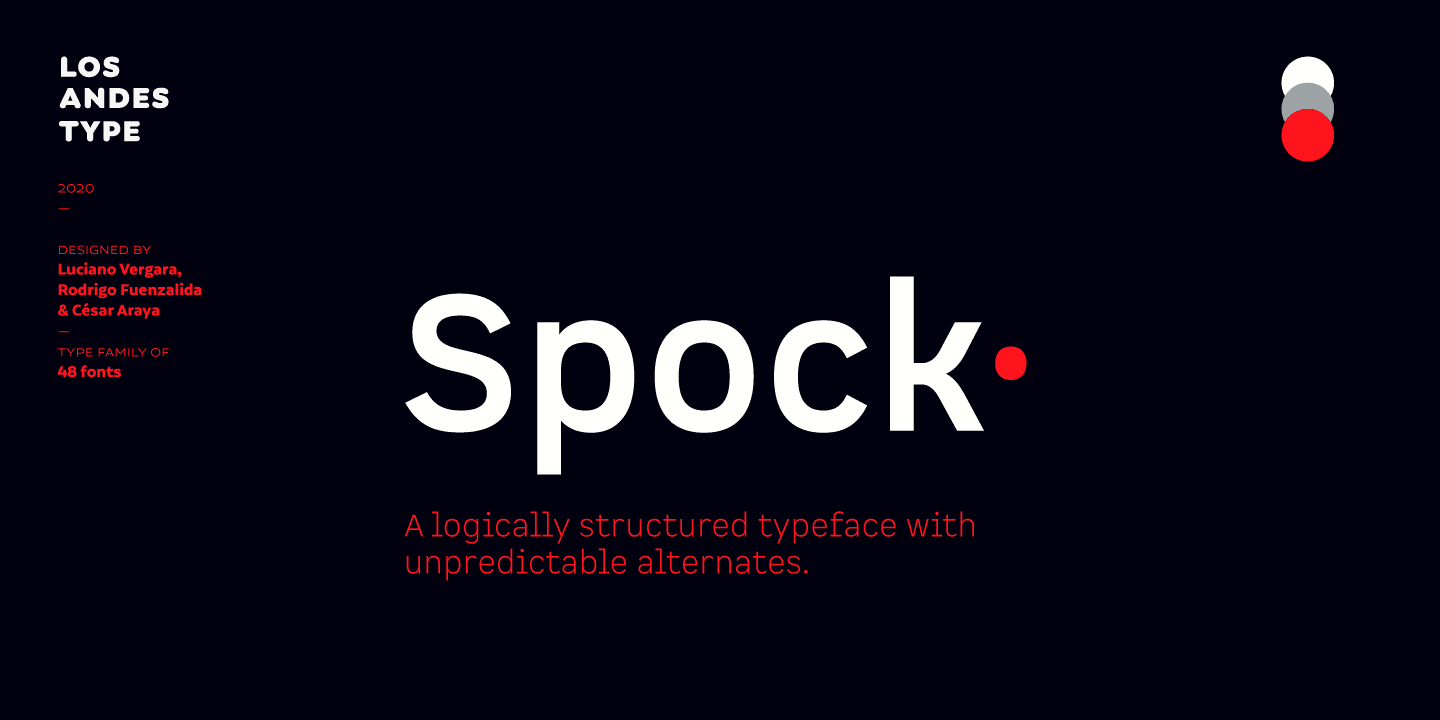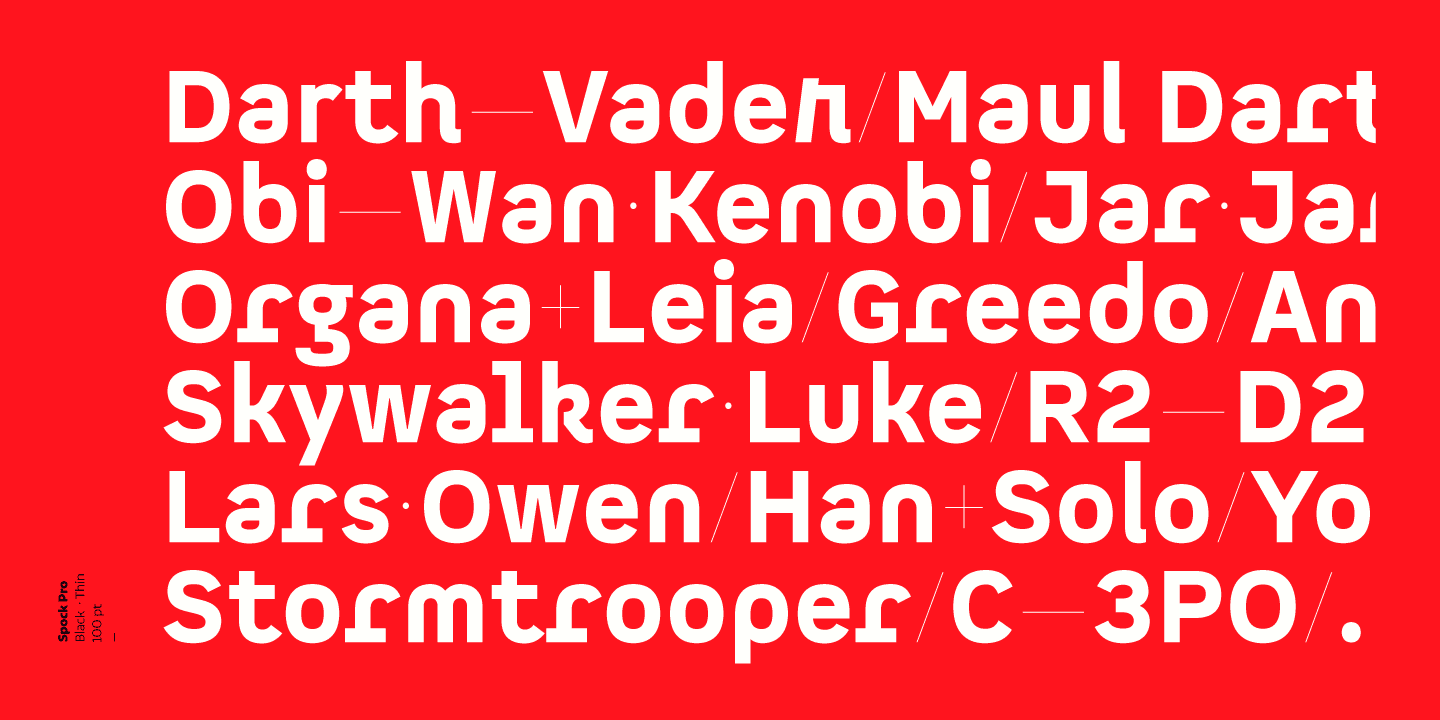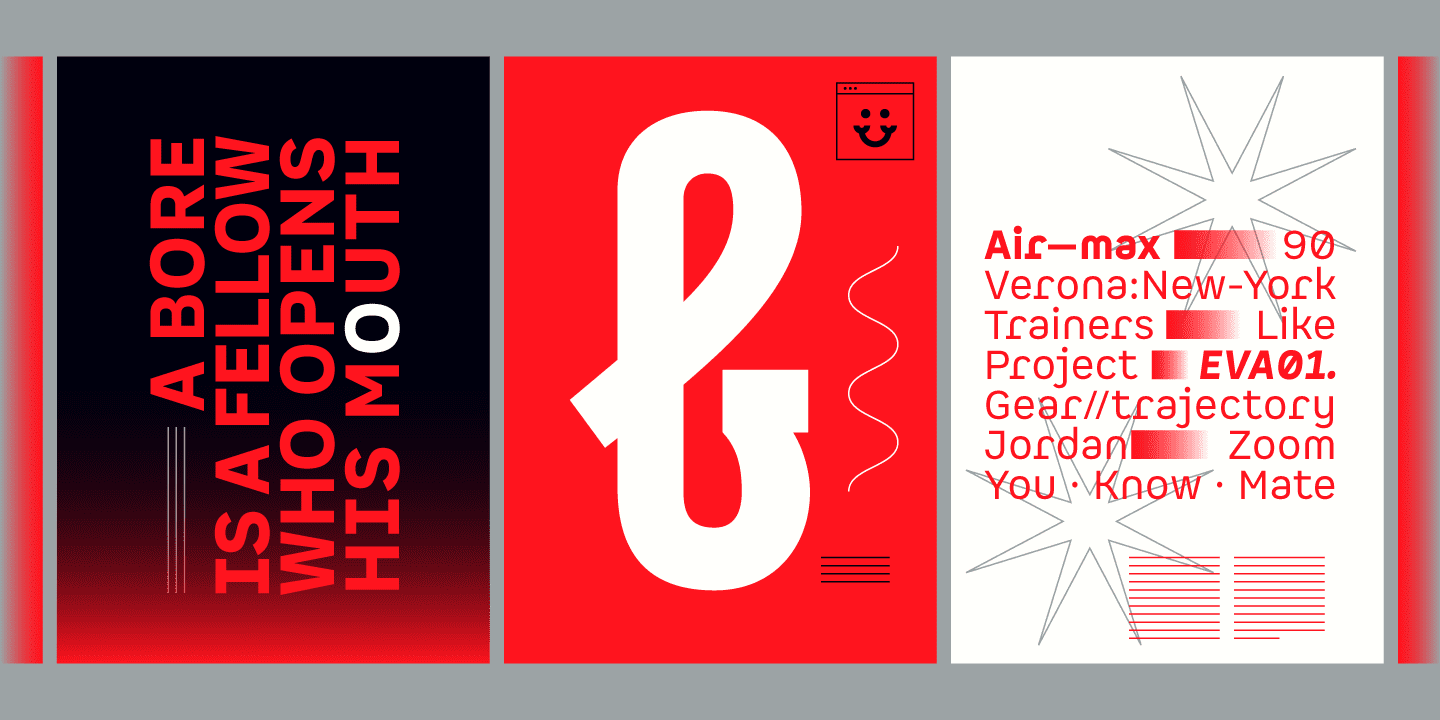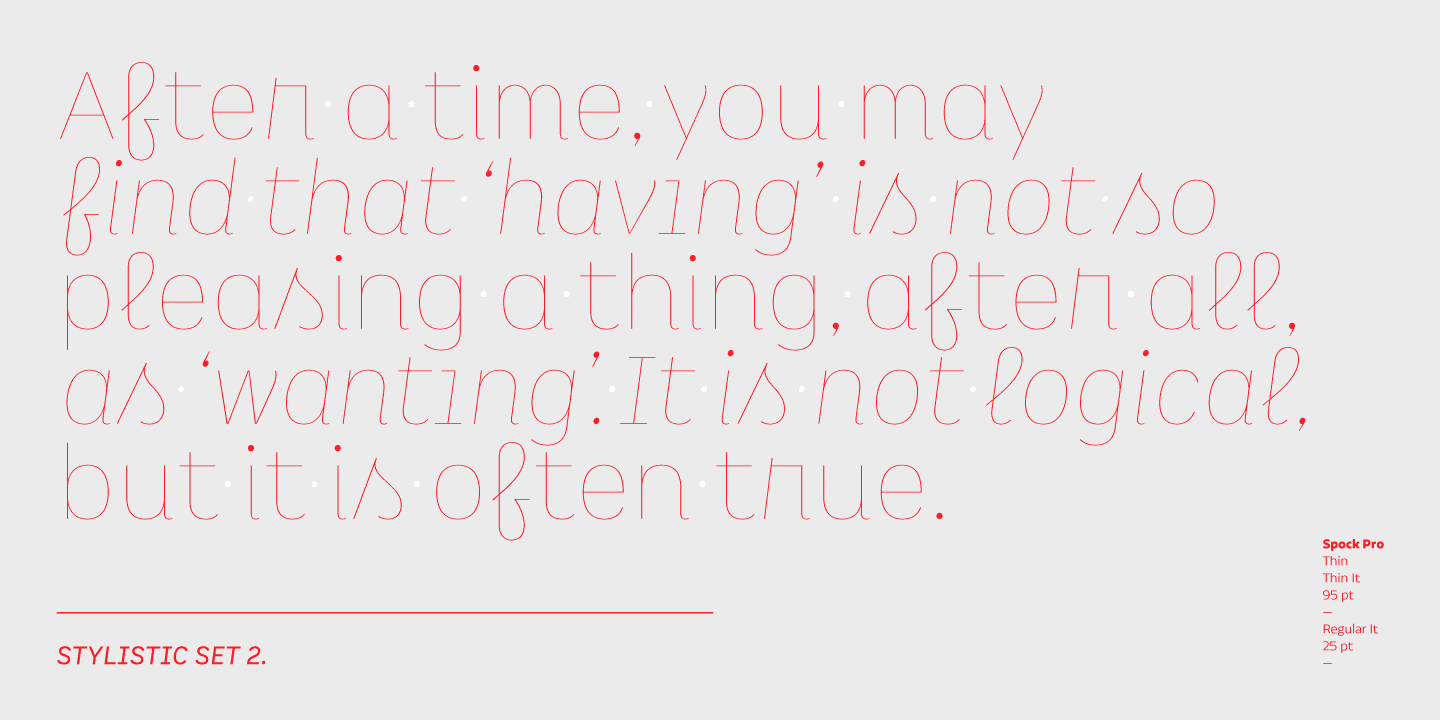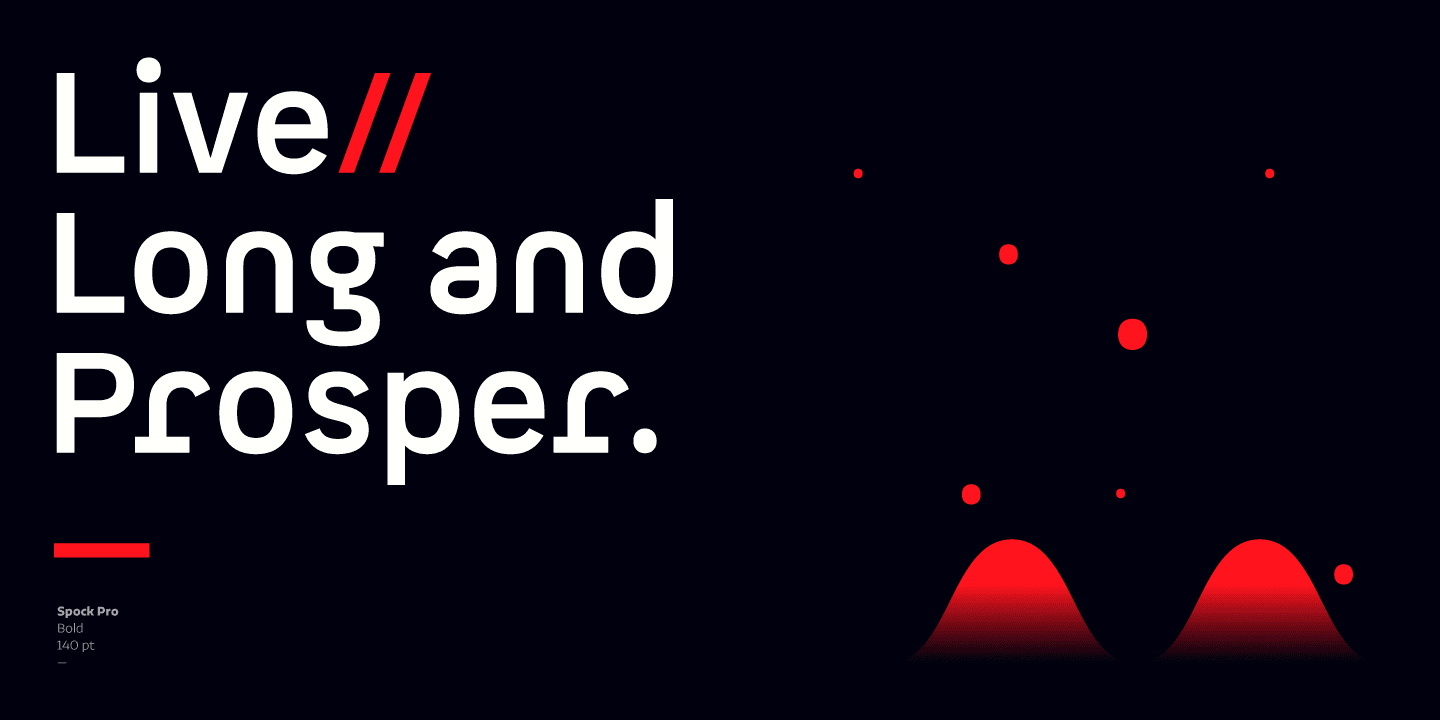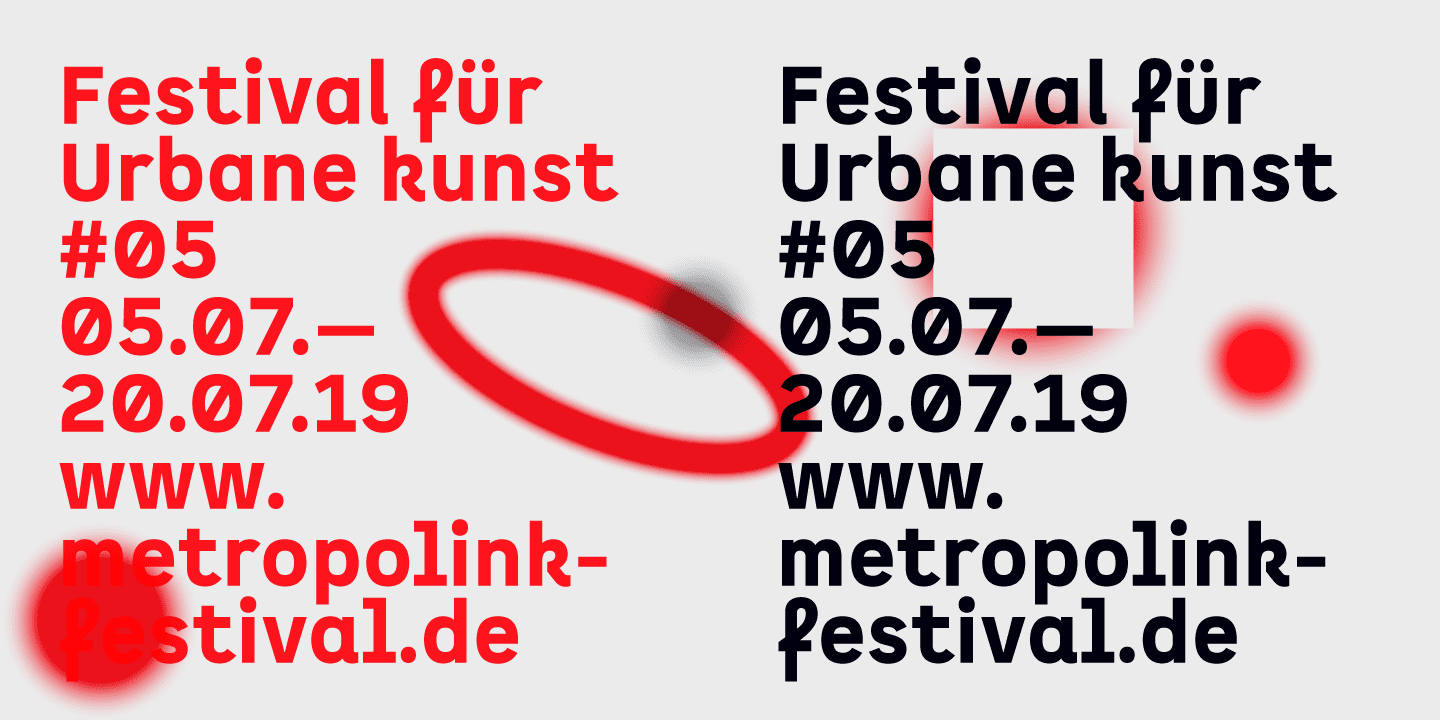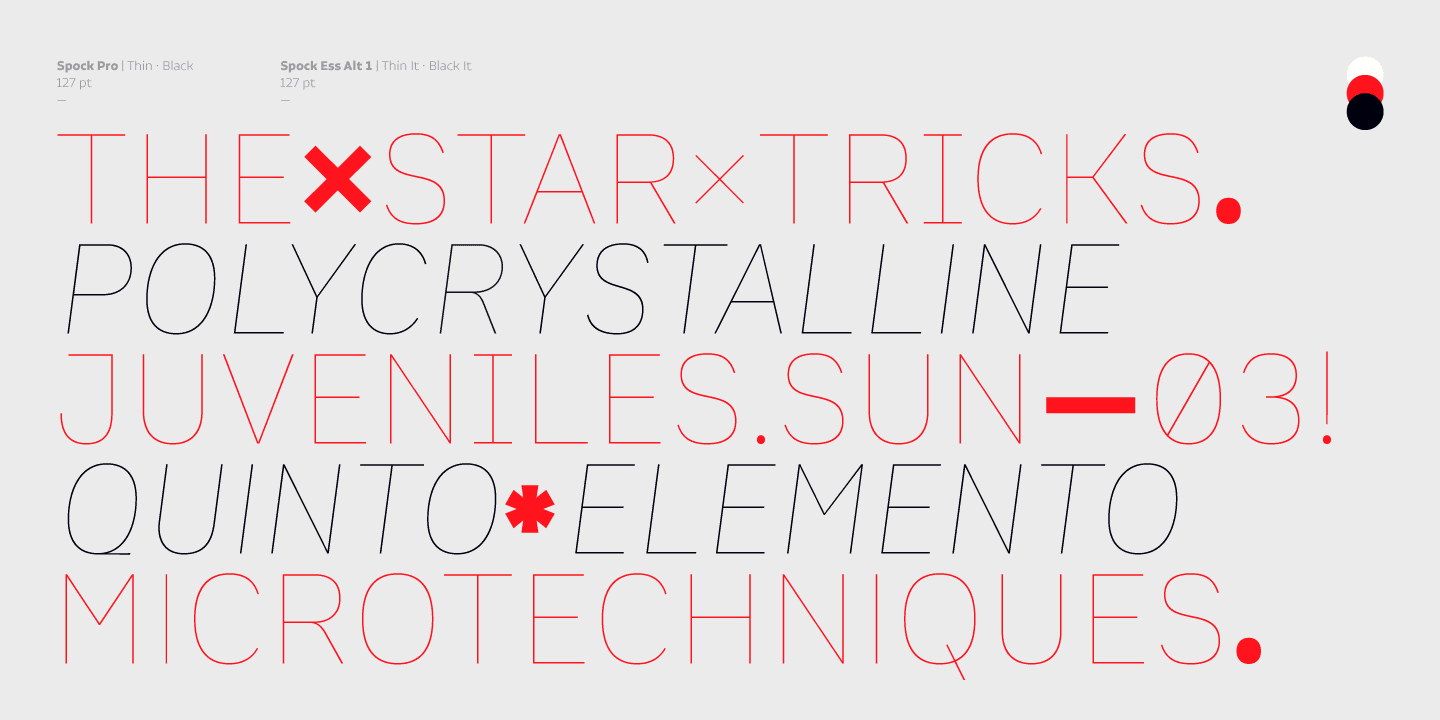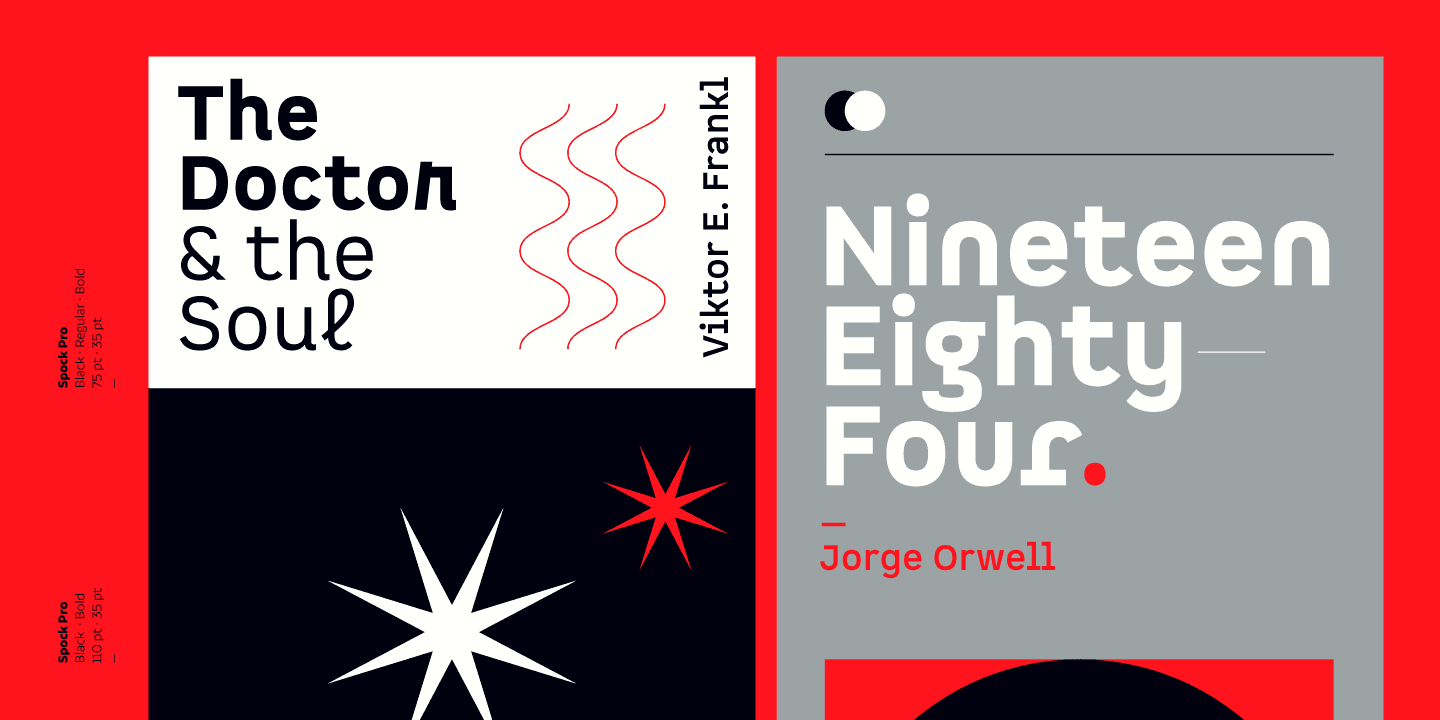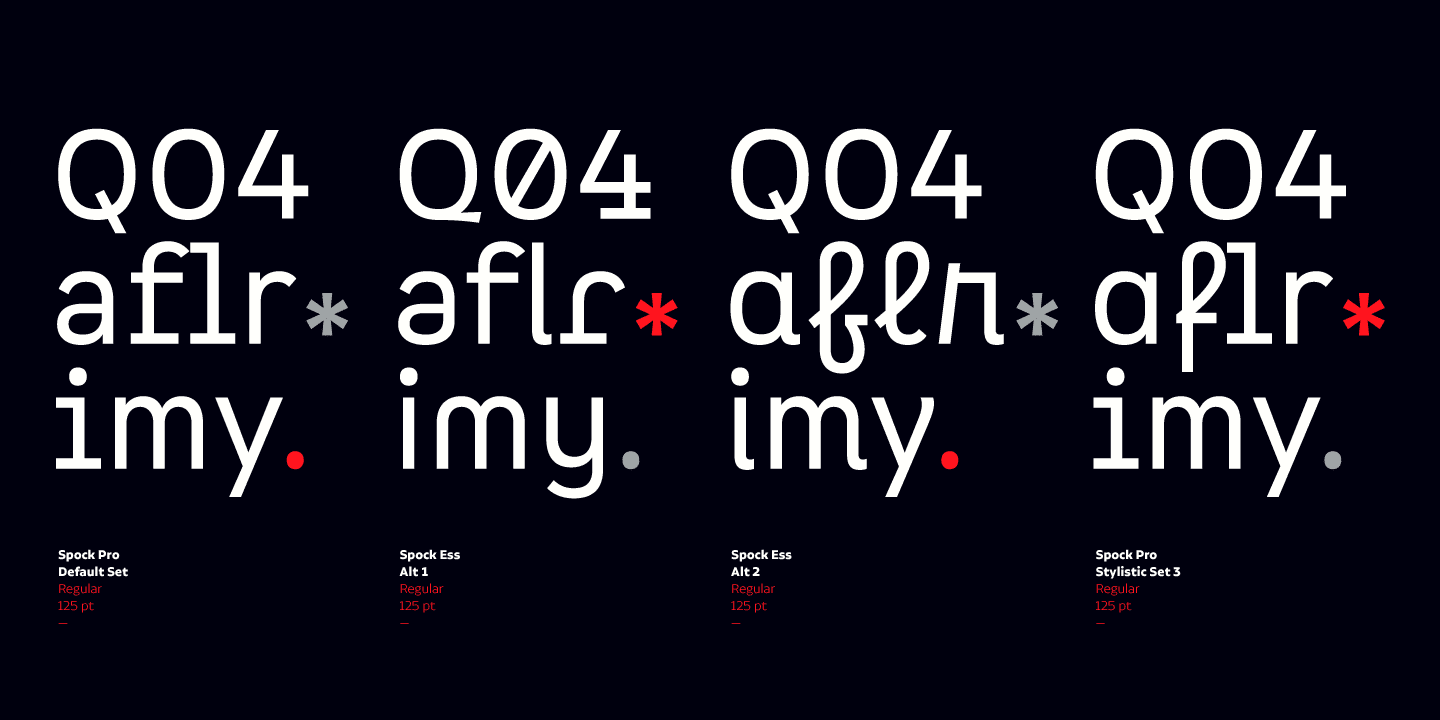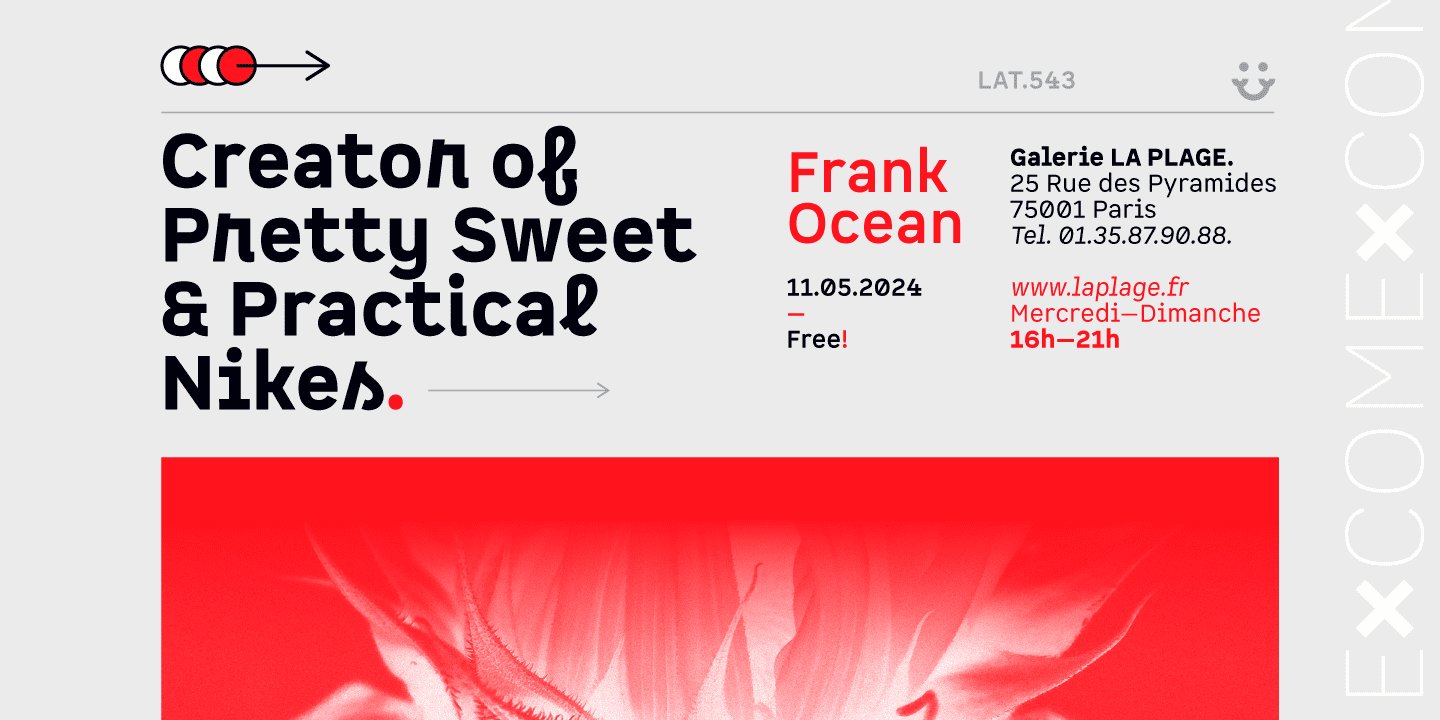
Each of the 4 sub-families consists of 6 weights and matching italics, making Spock a super family of 48 styles. The Pro family set contains 609 characters and it includes a generous number of alternates. The three other Essential sets are composed of alternative glyphs.
Spock is specially suited for advertising as well as editorial and corporate design.